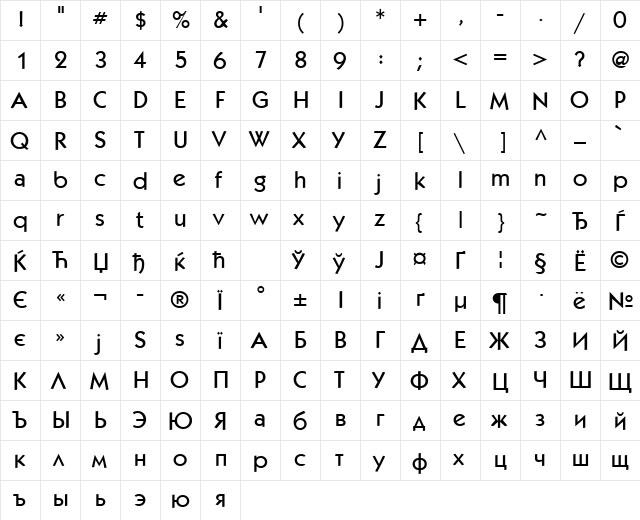
ft Medium Regular Font Preview
ft Medium Regular
ft Medium Regular Font Details
Design Context for ft Medium Typeface
ft Medium takes a measured approach to typography — its balanced proportions and neutral character make it a reliable workhorse for both digital and print work.